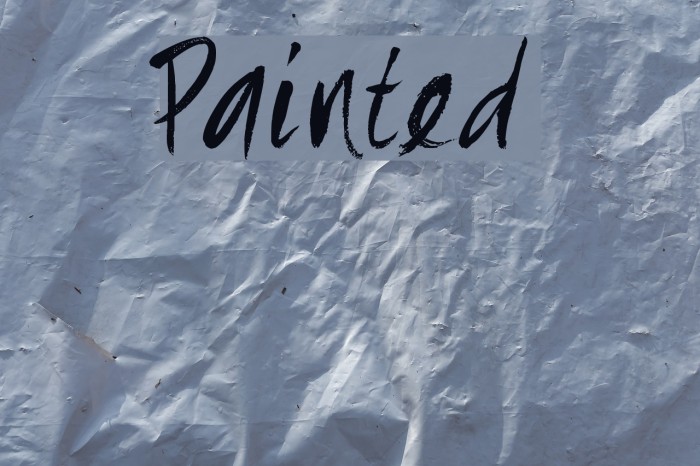
Painted Font
This font exudes a dynamic and expressive style, reminiscent of brush strokes with a hand-painted appearance. The letters are bold and fluid, with varying thickness that adds a sense of movement and energy. The uppercase and lowercase characters maintain a consistent style, with some letters featuring dramatic flourishes and others more restrained. The numbers and special characters follow the same artistic theme, making the font cohesive and visually striking. The overall impression is one of creativity and spontaneity, suitable for projects that require a personal and artistic touch.
A bold, brush-stroke style font with dynamic and expressive characters.
- Proposed Projects: Ideal for artistic projects, posters, branding, and any design requiring a creative and personal touch.
- Overall Style: Decorative
- Use Case: Logos, Posters, Artistic projects